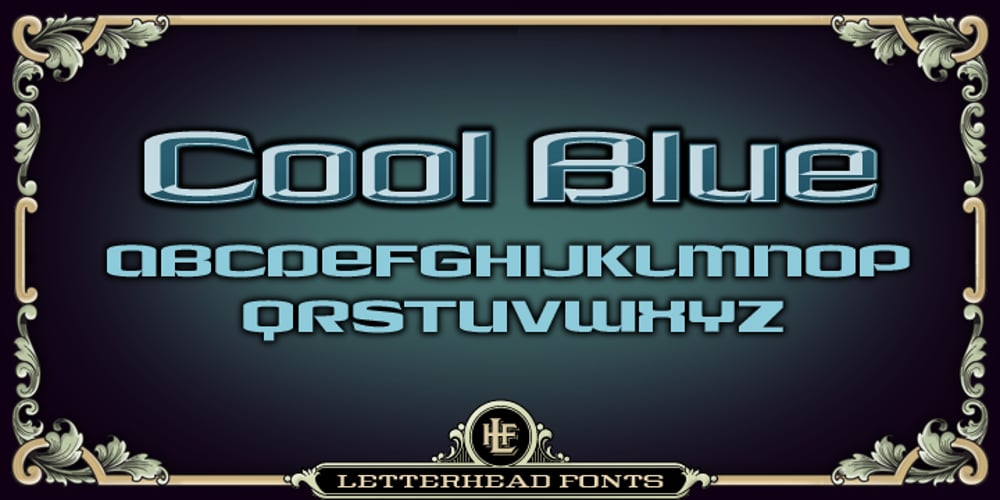
LHF Cool Blue
LHF Cool Blue font
LHF Cool Blue Font Family was designed by Chuck Davis and published by Letterhead Fonts. LHF Cool Blue contains 3 styles and family package options. Modern typeface with two versions: Regular & Convex.